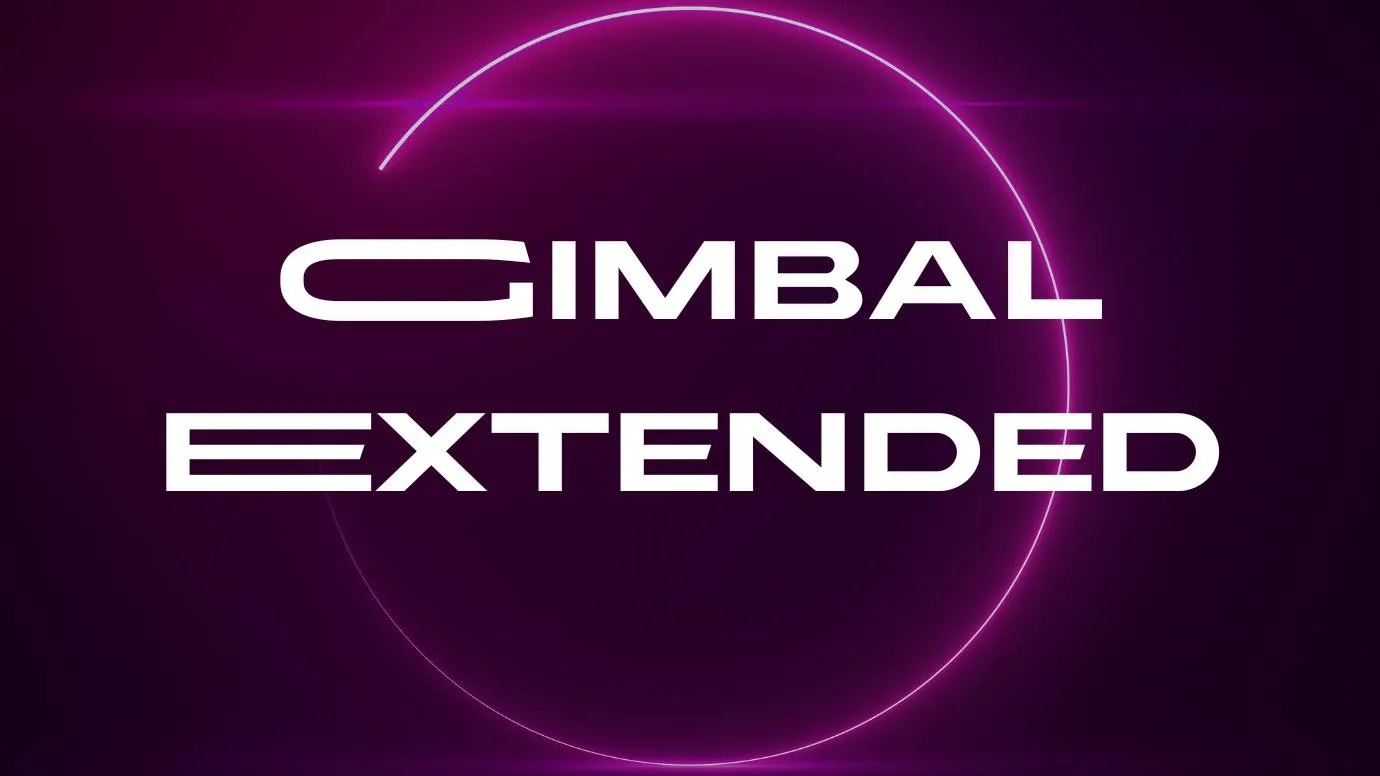
Gimbal Extended Font Family is an outstanding look font that lies in the classification of the Sans Serif family. This classic typeface was published by 177studio that is a famous font-designing studio.
This tremendous typography is effective for use in pairing with jumbox font that comes in the sans serif font family. This eye-catching font family has bold swashes and corners that make your design more attractive.
Gimbal Extended Font
NameGimbal Extended Font
TypeSans Serif
Designer177studio